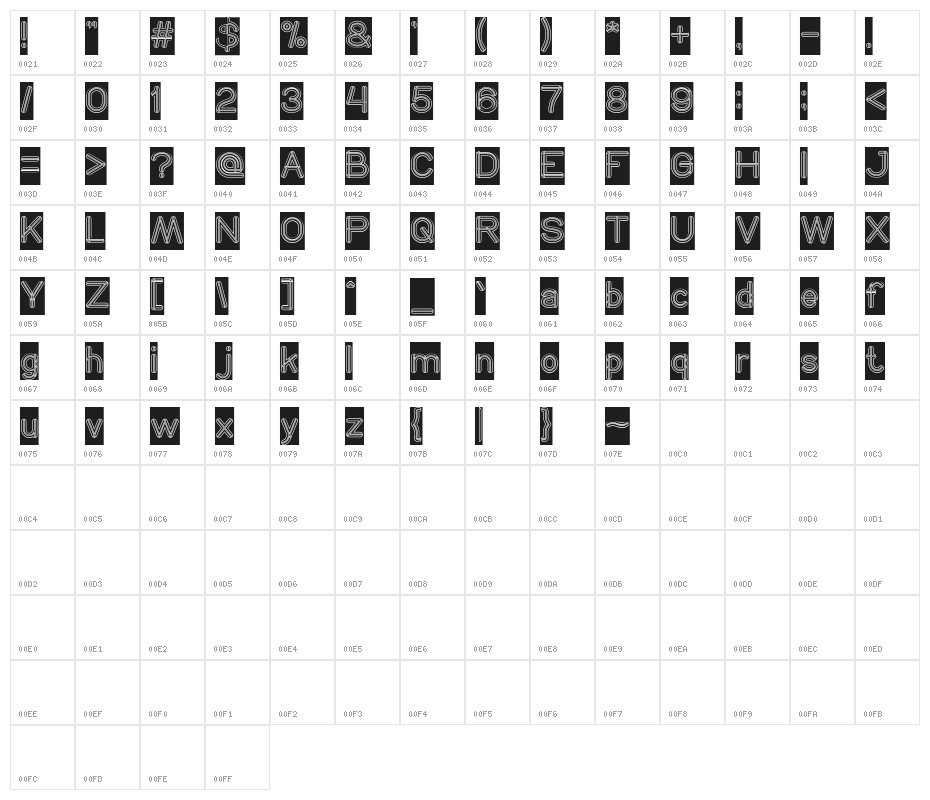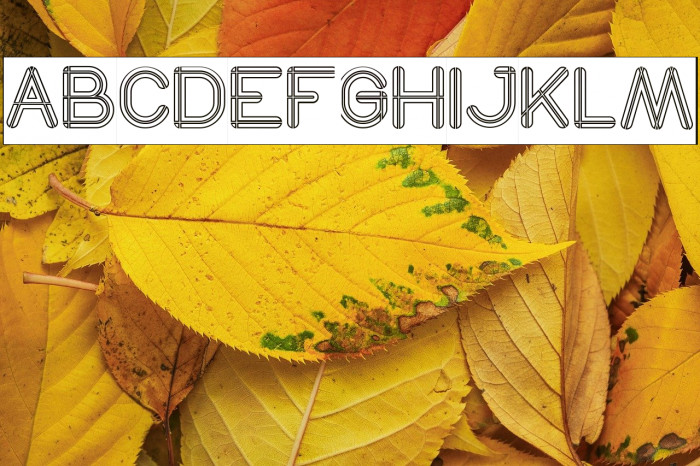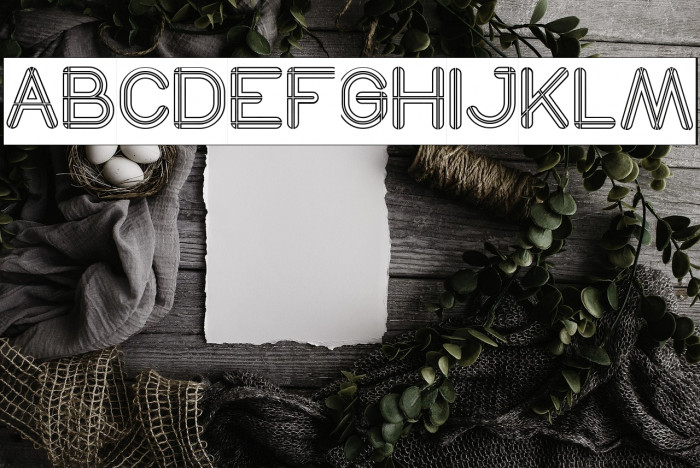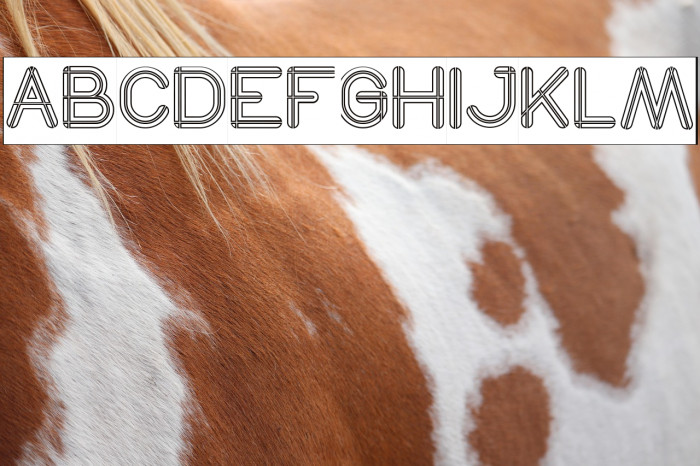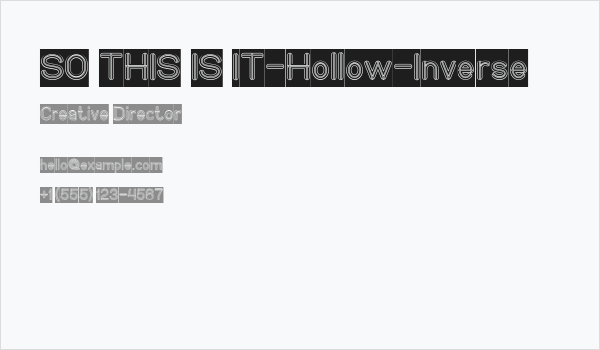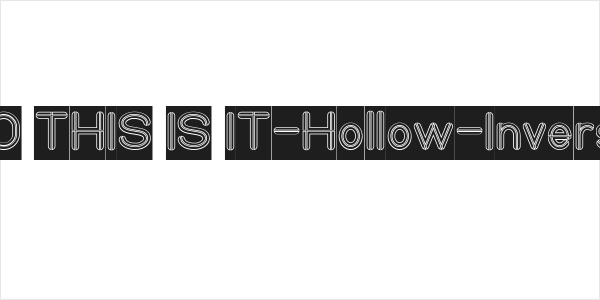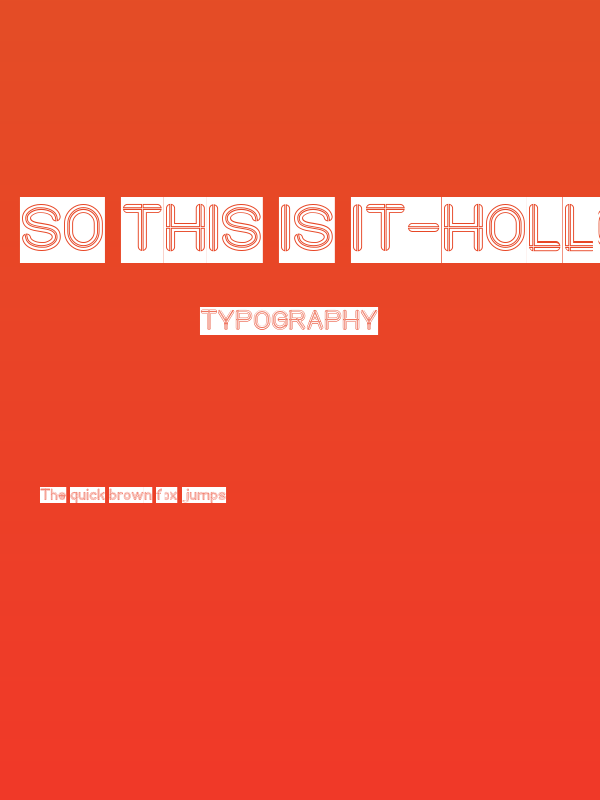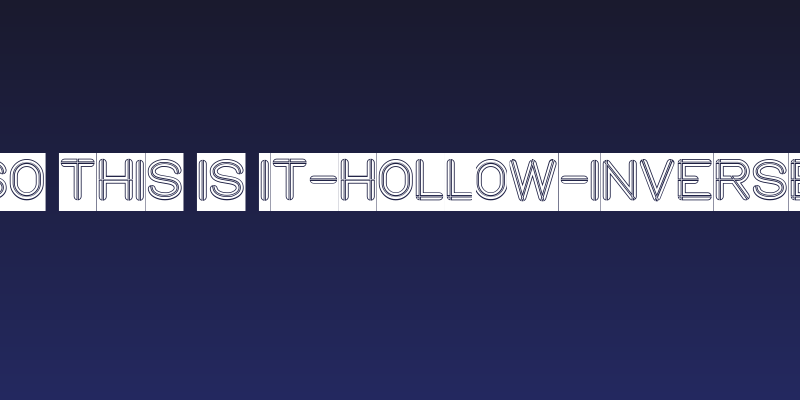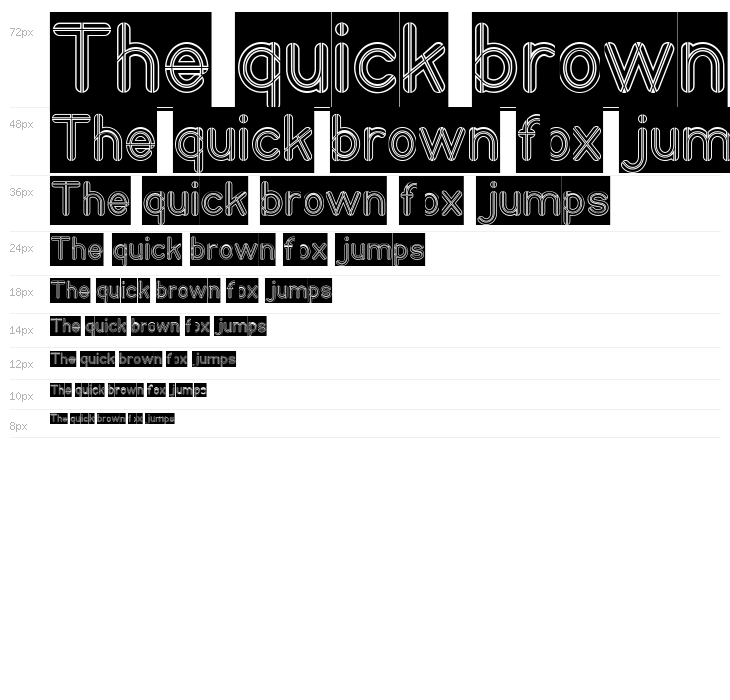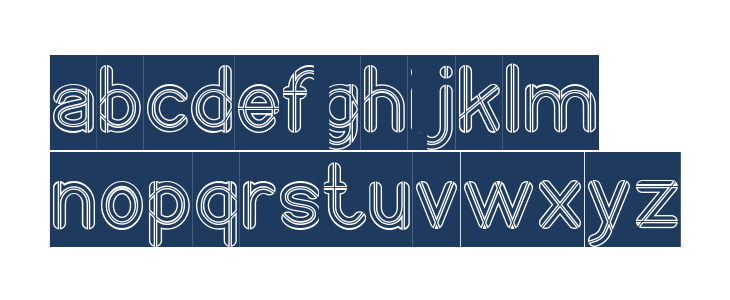
SO THIS IS IT-Hollow-Inverse Font
SO THIS IS IT-Hollow-Inverse Description
This font features a unique hollow design with an inverse style, creating a striking visual effect. The letters are outlined with multiple parallel lines, giving them a layered appearance. This design choice adds depth and dimension, making the characters stand out against any background. The uppercase and lowercase letters maintain a consistent style, ensuring uniformity across different text cases. The numerals and special characters are crafted with the same attention to detail, ensuring they complement the alphabetic characters seamlessly. This font's distinct style is both modern and eye-catching, making it suitable for a variety of creative applications.